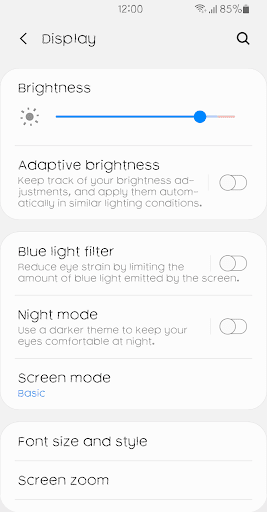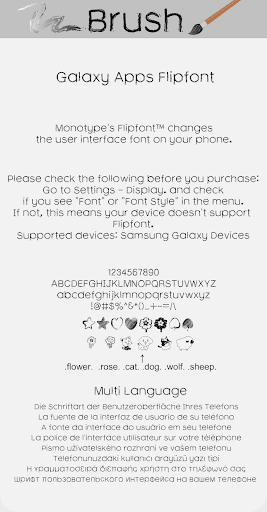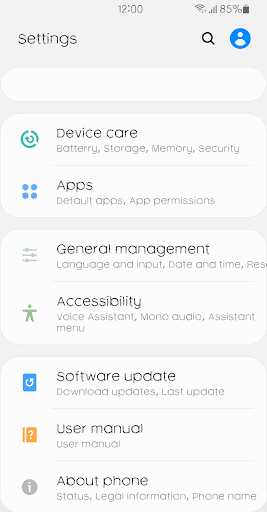
It's a typeface that feels written in Brush
This font has some feature.
1 .flower. .rose. .cat.. .dog. wolf. sheep. ,heart, ,star, ,boy, ,girl, ,club, ,phone, ,finger, ==> Convert to Icon
2 .^^. .\/. .**. .Apple. .apple. .peach. .Peach. .pear. .Pear. .balloon. .Balloon.
.heart. .Heart. .star. .Star. .cake. .Cake. .dance. .Dance.
.car. .Car. .train. .Train. .movie. .camera. .pocorn.